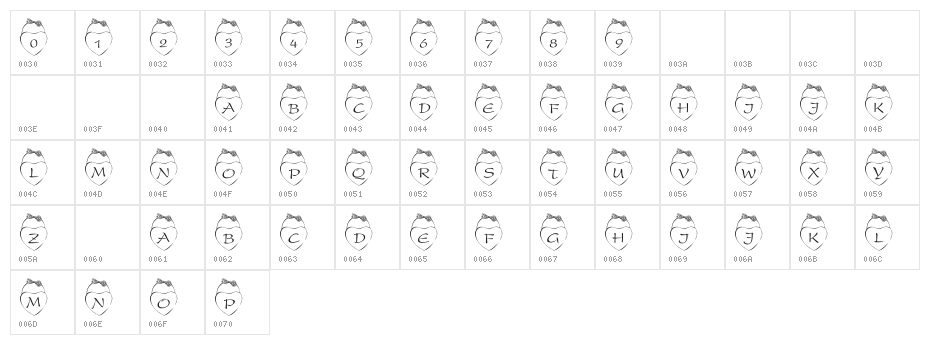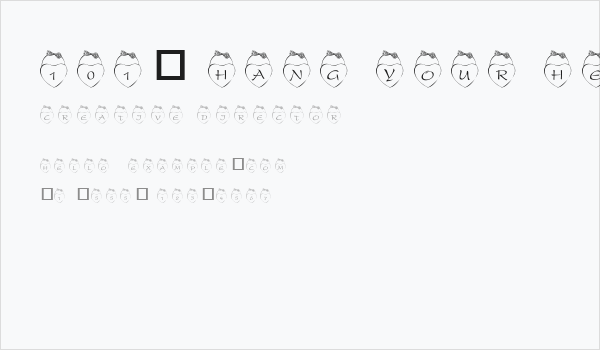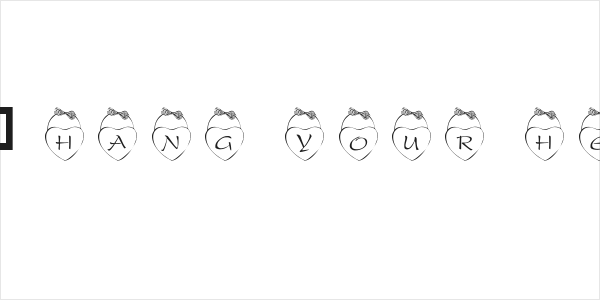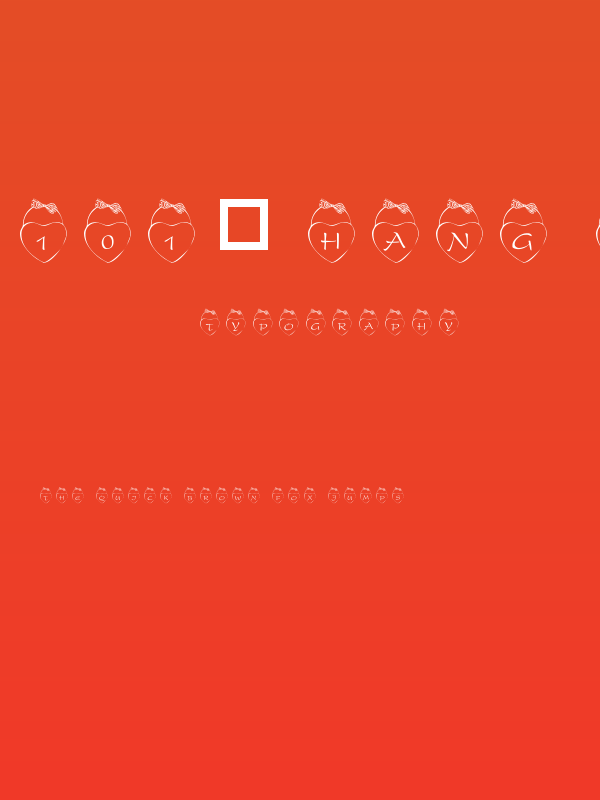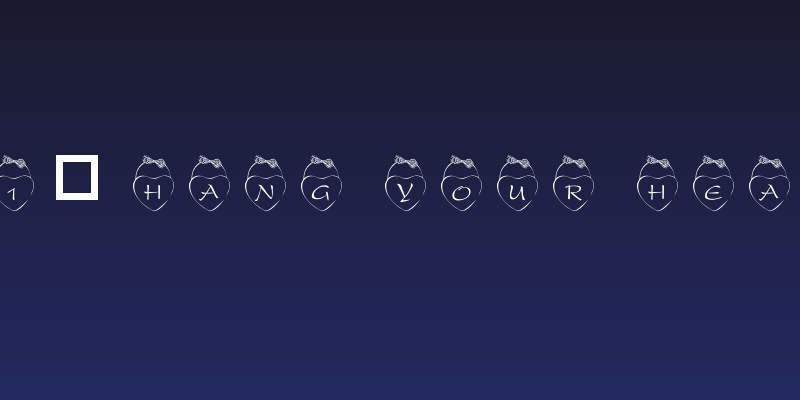
101! Hang Your Heart Font
101! Hang Your Heart Description
This decorative font features each character enclosed within a heart shape, topped with a small bow, giving it a playful and romantic appearance. The letters are uppercase and lowercase, with numerals also included, all maintaining a consistent style. The strokes are clean and uniform, providing a clear and legible presentation despite the decorative elements. The heart and bow design adds a whimsical touch, making it ideal for projects that require a charming and affectionate feel. The font's unique style is perfect for themed events, invitations, or any design that seeks to convey warmth and love.
| Use Case | Logos, Invitations, Themed Events |
| Proposed Projects | Ideal for wedding invitations, Valentine's Day cards, romantic event branding, and playful children's designs. |